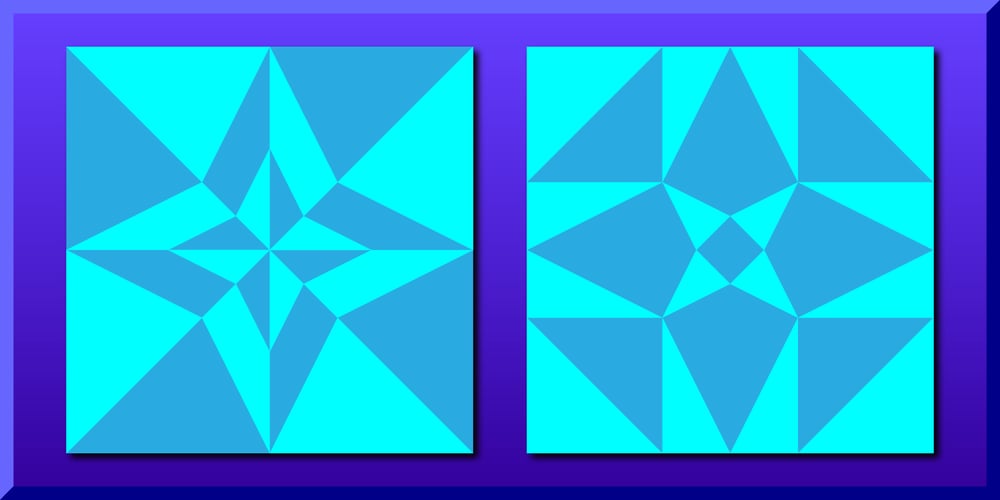
Quilt Patterns One Font Family was designed by Gerald Gallo and published by Gerald Gallo. Quilt Patterns One contains 1 styles and family package options. Quilt Patterns One was inspired by the patchwork designs used in quiltmaking in early America. There is an assortment of 94 patterns located under the character set and shift+character set keys. Quilt Patterns One is based on the nine patch pattern, a block that is 3 squares by 3 squares, the most basic and most common. The nine patch pattern can be subdivided into 6 squares by 6 squares, 9 squares by 9 squares, etc. Characters of Quilt Patterns One can be typed in a vector drawing program and then converted to paths/outlines, color may then be added to various parts of a given pattern. Patterns can be stacked horizontally and vertically creating an infinite number of quilt designs.